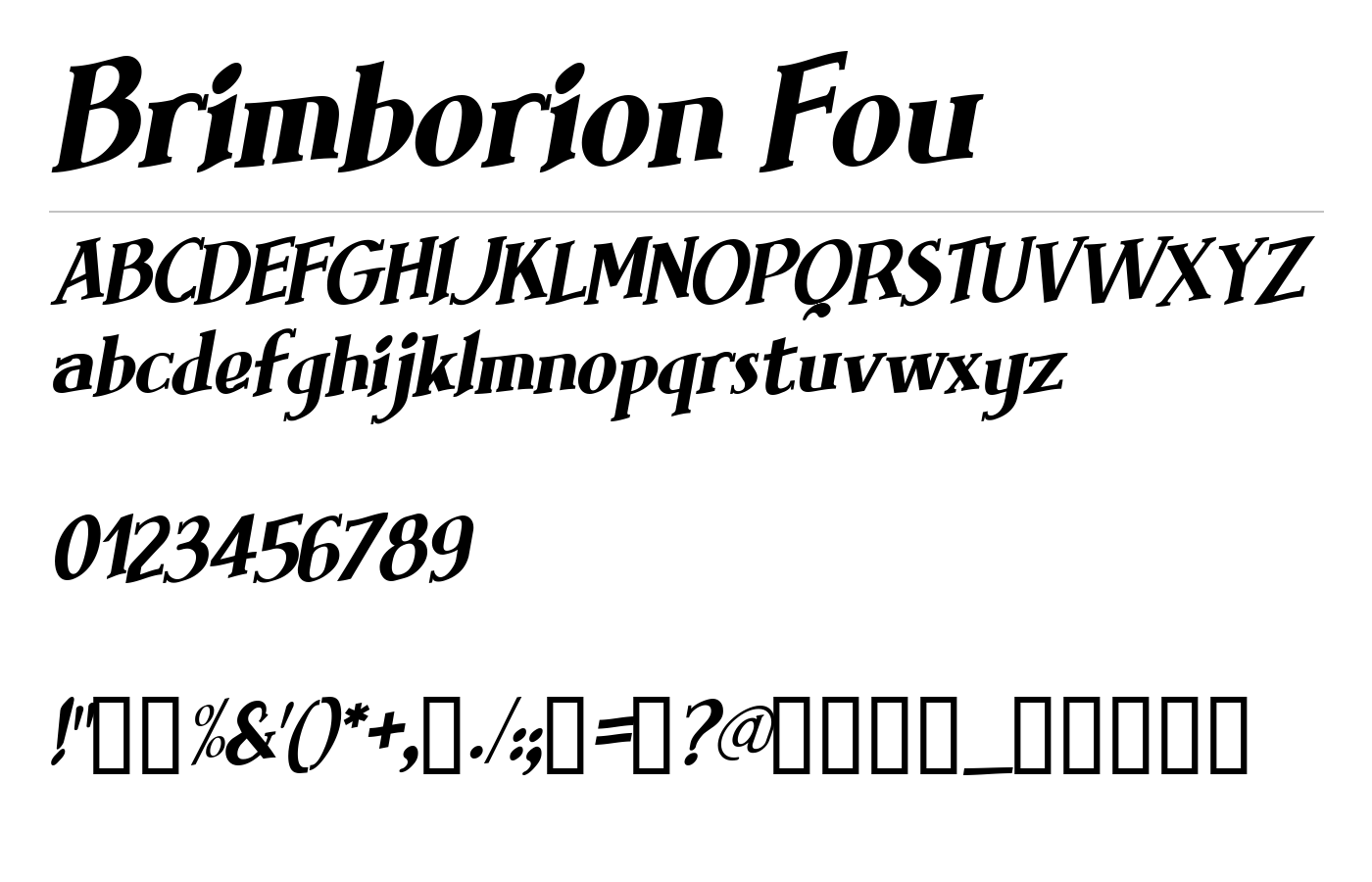
Brimborion Fou is a dynamic serif font with a classic, slightly calligraphic feel, characterized by its medium weight, moderate contrast, and elegant angled strokes that create a sense of movement and sophistication. Its distinctive italicized style, combined with sharp serifs and unique letterforms, makes it ideal for stylish headlines, branding, and editorial use where a blend of tradition and personality is desired. This font works well in fashion, luxury, and creative contexts, offering both readability and flair.
Brimborion Fou Font